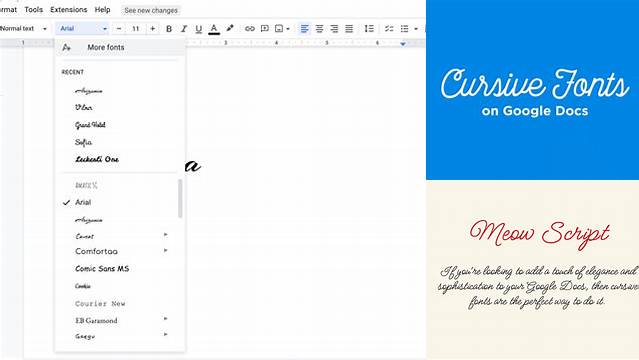
Elegant Cursive Fonts In Google Docs: A How-To Guide
Introduction: Discovering the Charm of Old Cursive Fonts
Hey guys! Are you looking to add a touch of elegance and vintage flair to your Google Docs? Look no further! Old cursive fonts can bring that classic, handwritten feel to your documents, making them stand out. In this comprehensive guide, we'll dive deep into the world of old cursive fonts available in Google Docs. We will explore how to use them effectively and how they can enhance your writing. Whether you're crafting a heartfelt letter, designing a beautiful invitation, or simply want to add a unique touch to your notes, understanding and utilizing old cursive fonts can make a world of difference. In this article, we’ll explore everything you need to know about using old cursive fonts in Google Docs. From identifying the best fonts to understanding their history and practical applications, we’ve got you covered. Let's explore how these fonts can transform your documents and bring a touch of timeless beauty to your work. So, buckle up and let's embark on this journey to explore the art of cursive writing in the digital age!
Google Docs offers a variety of fonts, but finding the perfect cursive font that exudes an old-world charm can be a delightful quest. Think of the elegance of handwritten letters from centuries past or the beautiful calligraphy in vintage books. That's the kind of aesthetic we're aiming for. Many people want to incorporate the sophistication and artistry of traditional handwriting into their digital documents. Old cursive fonts can evoke a sense of nostalgia, formality, and personal touch that standard fonts often lack. They are perfect for adding character to invitations, certificates, personal letters, and even creative writing projects. However, not all cursive fonts are created equal. Some may look too modern, while others might be difficult to read. The key is to find fonts that strike the right balance between style and legibility. In the following sections, we’ll explore some of the best old cursive fonts available in Google Docs and provide tips on how to use them effectively. So, let’s get started and discover the perfect font to add that timeless touch to your documents!
Top Recommendations for Old Cursive Fonts
Alright, let’s get to the good stuff! What are some of the top old cursive fonts you can find in Google Docs? I’ve got a few favorites that consistently deliver that timeless, elegant look. Here are some recommendations, along with tips on how to use them effectively. First up, we have "Great Vibes." This font is a classic choice for adding a touch of sophistication to your documents. Its flowing, elegant script makes it perfect for invitations, thank-you notes, and headings. "Great Vibes" has a formal yet friendly feel, making it versatile for various projects. When using "Great Vibes," it’s important to ensure that the text size is large enough to maintain legibility. Its intricate swirls and loops can become difficult to read if the font is too small. Consider using it for titles or short phrases rather than long paragraphs. Pairing it with a simpler sans-serif font for the body text can create a balanced and visually appealing look. Next on the list is "Allura." This font exudes a graceful and refined style, reminiscent of traditional calligraphy. "Allura" is slightly more formal than "Great Vibes," making it an excellent choice for wedding invitations, certificates, and formal announcements. Its delicate strokes and elegant flourishes add a touch of luxury to any document. When using "Allura," pay attention to the spacing between letters and words. Due to its intricate design, tight spacing can make the text look cluttered. Adjusting the kerning and tracking settings in Google Docs can help improve readability. Like "Great Vibes," "Allura" works best when used sparingly, such as for headings or special highlights.
Another fantastic option is "Pacifico." This font has a more relaxed and flowing style compared to "Great Vibes" and "Allura." "Pacifico" is inspired by the surf culture of the 1950s, giving it a retro yet elegant vibe. It’s a great choice for projects where you want to add a touch of personality and warmth. "Pacifico" is particularly well-suited for greeting cards, casual invitations, and creative writing. Its friendly and approachable style makes it a versatile option for various projects. When using "Pacifico," consider using it in slightly larger sizes to emphasize its unique character. Its rounded letterforms and smooth lines make it easy to read, even at smaller sizes, but increasing the size can enhance its visual impact. Pairing it with a clean, modern sans-serif font can create a balanced and stylish look. Last but not least, we have "Lobster." This font is a bold and distinctive cursive option with a vintage flair. "Lobster" features connected letterforms and a slightly condensed design, making it stand out from other cursive fonts. It’s an excellent choice for headlines, posters, and branding materials where you want to make a statement. When using "Lobster," be mindful of its strong personality. Due to its bold and distinctive style, it’s best used sparingly. Avoid using it for long paragraphs or body text, as it can become overwhelming. Instead, use it for short, impactful phrases or titles. Pairing it with a simple, neutral font can help balance its strong presence. These are just a few of the many old cursive fonts available in Google Docs. Experiment with different options to find the ones that best suit your style and project needs. Remember, the key is to choose fonts that not only look beautiful but are also easy to read and appropriate for the context of your document.
Tips for Enhancing Readability with Cursive Fonts
Okay, so you’ve picked out some gorgeous old cursive fonts – awesome! But let’s talk about making sure your documents are still easy to read. After all, the point of writing is to communicate effectively, right? Here are some crucial tips to enhance readability when using cursive fonts in Google Docs. First and foremost, consider the size of your font. Cursive fonts, especially those with intricate details and flourishes, can become difficult to read if they are too small. As a general rule, it’s best to use cursive fonts in slightly larger sizes than you would with standard fonts like Arial or Times New Roman. Experiment with different sizes to find the sweet spot where the font is both visually appealing and easy on the eyes. For headings and titles, you might even go a bit larger to make a statement. However, for body text, it’s usually best to stick to a size that ensures comfortable reading. Another key factor in readability is letter spacing. Cursive fonts often have connected letters and flowing strokes, which can sometimes lead to crowding and overlap. Adjusting the letter spacing, also known as kerning and tracking, can make a big difference. Kerning refers to the spacing between individual letter pairs, while tracking refers to the overall spacing between letters in a block of text. In Google Docs, you can adjust letter spacing by going to “Format” > “Line spacing” > “Custom spacing.” Experiment with increasing the spacing slightly to give each letter more breathing room. This can significantly improve the legibility of cursive fonts, especially in longer passages of text. In addition to letter spacing, line spacing plays a crucial role in readability. Cursive fonts often look better with slightly more space between lines than standard fonts. This helps to prevent the lines of text from appearing cramped and makes it easier for the reader to follow along. In Google Docs, you can adjust line spacing in the same “Line spacing” menu where you adjusted letter spacing. A good starting point is to increase the line spacing by 1.2 or 1.5, depending on the font and the overall layout of your document.
Another important tip is to use cursive fonts sparingly. While they can add a touch of elegance and personality to your documents, using them excessively can make your text look cluttered and overwhelming. Cursive fonts are best used for headings, titles, and short phrases where you want to make a visual impact. For body text, it’s usually best to stick to a simpler, more legible font like Arial, Times New Roman, or Open Sans. This creates a clear contrast between the decorative elements and the main content, making your document more readable and visually appealing. Pairing cursive fonts with sans-serif fonts is a classic design technique that can enhance readability and create a balanced look. Sans-serif fonts are characterized by their clean, simple lines, which contrast nicely with the flowing strokes of cursive fonts. When choosing a sans-serif font to pair with a cursive font, look for options that are neutral and easy to read, such as Arial, Helvetica, or Open Sans. Use the sans-serif font for the body text and the cursive font for headings or highlights to create a visually harmonious composition. Test your document’s readability by printing it out or viewing it on different devices. What looks great on your computer screen might not translate well to other formats. Printing out a sample page can help you identify any issues with font size, spacing, or contrast. Similarly, viewing your document on a mobile device or tablet can reveal potential problems with readability on smaller screens. Make adjustments as needed to ensure that your document looks great in all formats. By following these tips, you can ensure that your documents not only look beautiful but are also easy to read and understand. Cursive fonts can be a powerful tool for adding personality and style to your writing, but it’s essential to use them thoughtfully and strategically to maximize their impact.
Practical Applications of Old Cursive Fonts
So, where can you actually use these old cursive fonts? The possibilities are pretty vast! Think about all the different types of documents you create, and how a touch of elegant cursive can elevate them. Let’s dive into some practical applications where old cursive fonts can really shine. One of the most common uses is for invitations. Whether you’re planning a wedding, a birthday party, or a formal dinner, cursive fonts can add a touch of sophistication and elegance to your invitations. Imagine a beautifully designed wedding invitation with the names of the couple and the date written in a graceful cursive script. It instantly sets a tone of romance and tradition. Cursive fonts are also perfect for thank-you notes and RSVP cards, adding a personal touch that feels more heartfelt than standard fonts. When designing invitations, consider using cursive fonts for the main details, such as the event title, the names of the hosts, and the date. Pair them with a simpler font for the body text and other essential information to ensure readability. You can also use cursive fonts to highlight key words or phrases, drawing attention to the most important elements of the invitation. Another fantastic application is for certificates and awards. Cursive fonts can add a sense of prestige and formality to certificates of achievement, diplomas, and awards. A beautifully crafted certificate with elegant cursive lettering conveys a sense of accomplishment and recognition. Think about the classic diplomas and awards you’ve seen over the years – many of them feature traditional cursive fonts. When designing certificates, choose a cursive font that is both elegant and legible. Fonts like “Allura” or “Great Vibes” are excellent choices for this purpose. Use the cursive font for the recipient’s name, the title of the award, and any other key details. Pair it with a formal serif font for the body text to create a balanced and professional look.
Personal letters and notes are another area where old cursive fonts can make a significant impact. In a world dominated by digital communication, a handwritten letter or note stands out as a thoughtful and personal gesture. Using a cursive font in your letters can add a touch of warmth and sincerity. Whether you’re writing a letter to a friend, a thank-you note, or a sympathy card, a cursive font can help convey your emotions in a more heartfelt way. When writing personal letters, choose a cursive font that reflects your personality and style. Fonts like “Pacifico” or “Dancing Script” have a more casual and friendly feel, while fonts like “Allura” or “Great Vibes” are more formal and elegant. Consider the tone of your letter and choose a font that aligns with your message. Creative writing projects can also benefit from the use of old cursive fonts. If you’re writing a novel, a short story, or a poem, cursive fonts can add a unique visual element to your work. Think about using cursive fonts for chapter titles, headings, or epigraphs to create a specific mood or atmosphere. Cursive fonts can also be used to represent handwritten notes or letters within your story, adding a layer of authenticity and realism. When using cursive fonts in creative writing, experiment with different options to find the ones that best suit your project. Consider the genre, the setting, and the characters in your story. Choose fonts that evoke the right emotions and enhance the overall reading experience. Finally, branding and marketing materials can also benefit from the use of old cursive fonts. If you’re designing a logo, a website, or marketing collateral for your business, a cursive font can help convey a sense of elegance, tradition, or personal touch. Cursive fonts are particularly well-suited for businesses in the wedding industry, the hospitality industry, and the creative arts. When using cursive fonts in branding, choose a font that reflects your brand’s personality and values. Make sure the font is legible and scalable, so it looks good in both small and large sizes. Use it sparingly and consistently to create a cohesive brand identity. So, as you can see, there are numerous practical applications for old cursive fonts. Whether you’re designing invitations, writing letters, or creating branding materials, these fonts can add a touch of elegance and personality to your work. Experiment with different options and find the ones that best suit your style and project needs.
Conclusion: Embracing the Elegance of Old Cursive Fonts
In conclusion, old cursive fonts offer a fantastic way to bring a touch of elegance and vintage charm to your Google Docs. From invitations and certificates to personal letters and creative writing projects, these fonts can elevate your documents and make them stand out. We've explored how to find and use these fonts effectively, highlighting some top recommendations and providing tips for enhancing readability. Remember, the key is to choose fonts that not only look beautiful but are also easy to read and appropriate for the context of your document. So go ahead, guys, experiment with different old cursive fonts and discover the perfect way to add a touch of timeless beauty to your work. By following the tips and recommendations outlined in this guide, you’ll be well on your way to mastering the art of cursive writing in the digital age. Embrace the elegance and sophistication that old cursive fonts can bring to your projects, and let your creativity flow! Whether you’re crafting a heartfelt message or designing a stunning visual, these fonts can help you make a lasting impression. So, the next time you’re working on a document in Google Docs, don’t hesitate to explore the world of old cursive fonts. You might just find the perfect font to transform your writing and add a touch of timeless elegance to your work. Happy writing, and may your documents always reflect your unique style and personality!